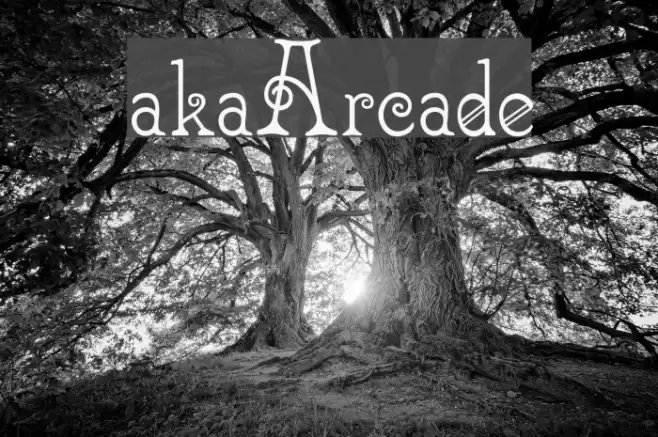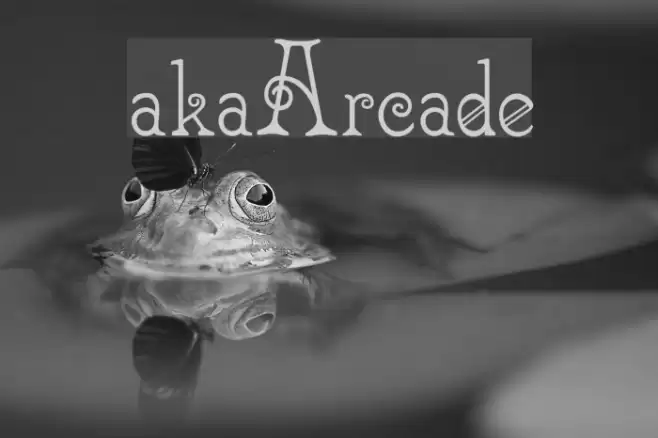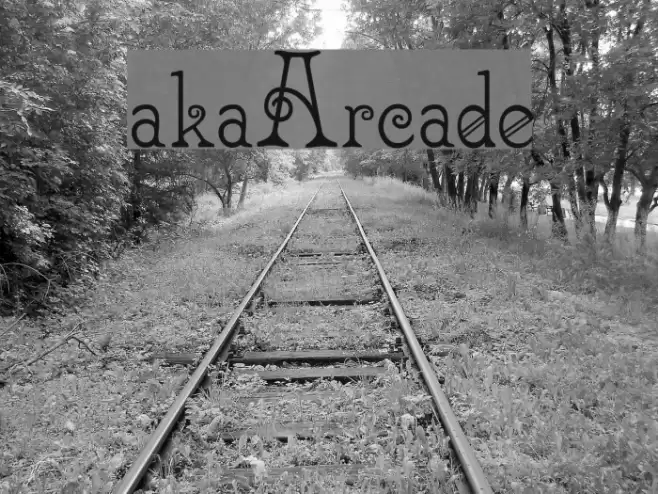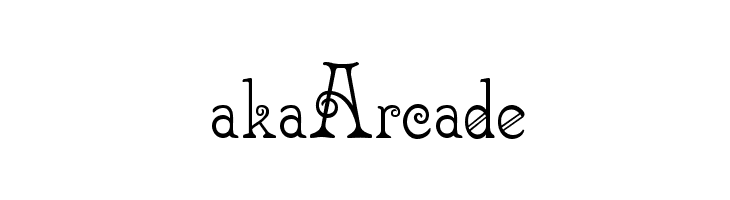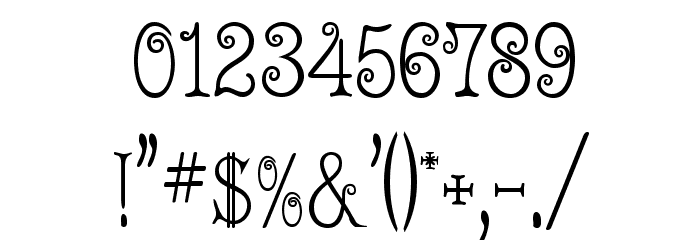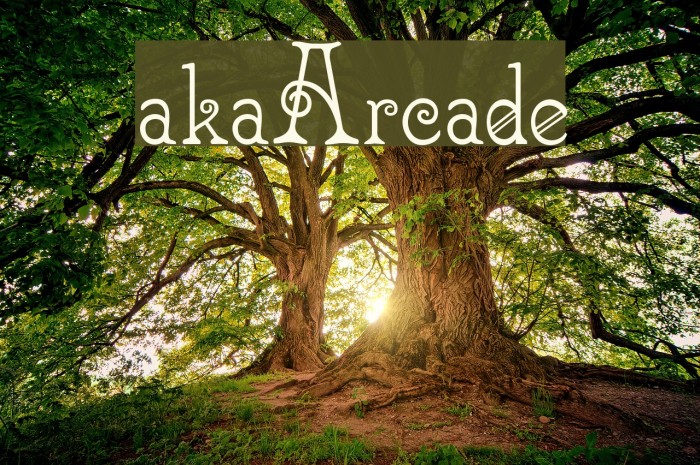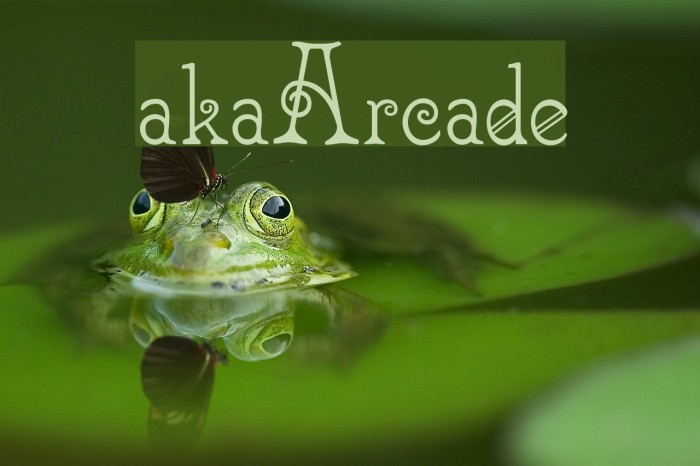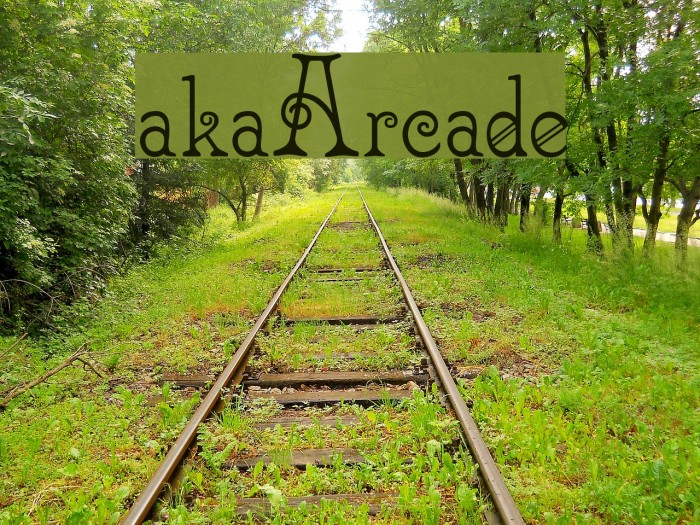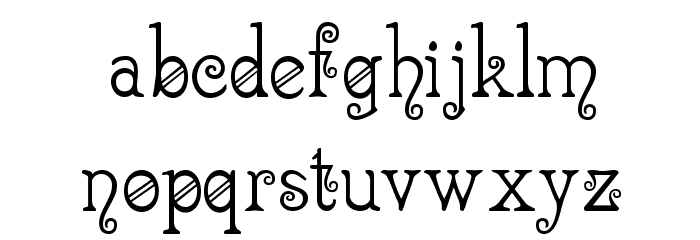
This font features a whimsical and playful design, characterized by its decorative and curly elements. Each letter is adorned with unique swirls and loops, giving it a lively and animated appearance. The uppercase letters are bold and prominent, while the lowercase letters maintain a consistent style with slightly less embellishment. Numbers and special characters follow the same decorative theme, ensuring a cohesive look across all glyphs. The font's distinct personality makes it ideal for creative and fun projects, where a touch of flair is desired.
- Proposed Projects: Ideal for children's books, playful invitations, greeting cards, and creative branding.